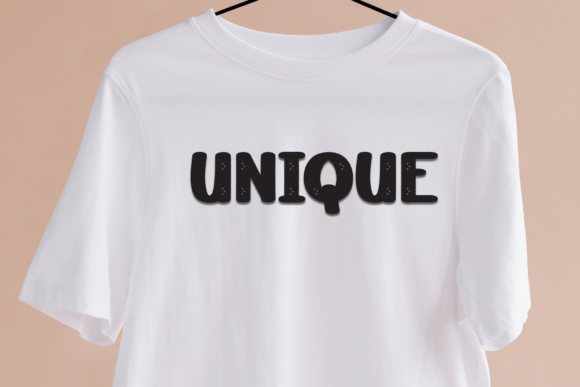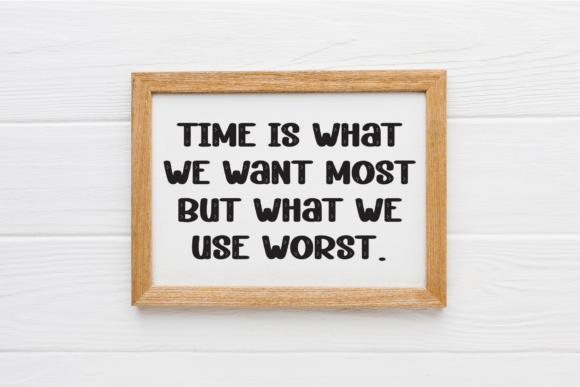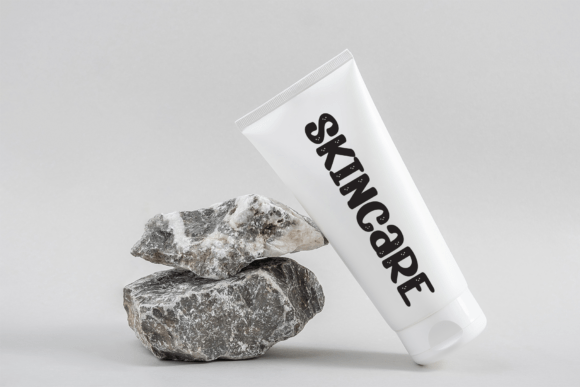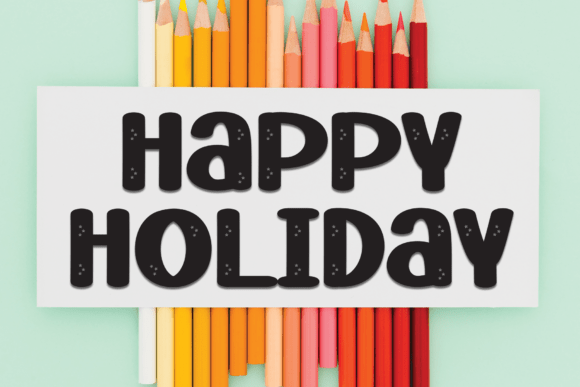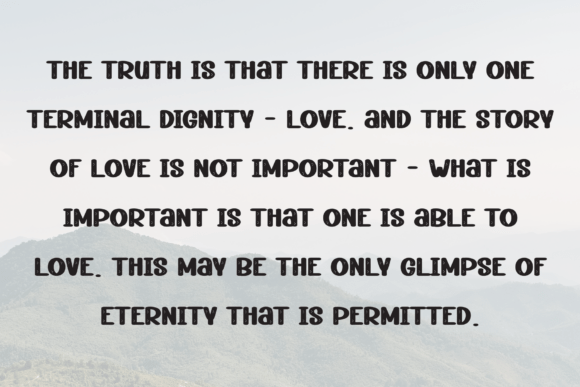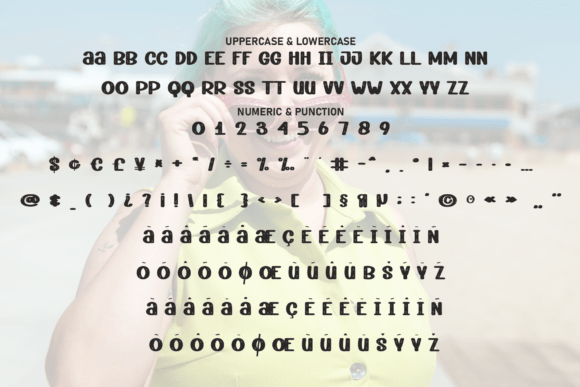
Introducing Chubby Summer Font: The Perfect Blend of Clarity and Relaxed Style
Are you tired of using fonts that are either too formal or too over-the-top for your design projects? Look no further than the Chubby Summer Font, a neat and casual display font that strikes the perfect balance between clarity and a relaxed, approachable vibe. In this article, we’ll dive into the features and benefits of Chubby Summer, and explore how it can elevate your designs, whether you’re a seasoned designer or a crafty DIY enthusiast.
Clean Lines, Friendly Letterforms
One of the standout features of Chubby Summer is its clean lines and friendly letterforms. This font is designed to be easy to read, making it perfect for headlines, posters, packaging, and branding that needs to communicate a message quickly and effectively. The clean lines also give Chubby Summer a modern feel, ensuring that your designs look fresh and up-to-date.
But what really sets Chubby Summer apart is its friendly letterforms. The font has a warm and approachable quality that makes it perfect for designs that need to feel laid-back and relaxed. Whether you’re creating a poster for a summer music festival or a logo for a beachwear brand, Chubby Summer is the perfect choice.
Balanced Structure, Playful Energy
Chubby Summer has a balanced structure that ensures it looks great in a variety of contexts. The font is neither too bold nor too subtle, making it perfect for designs that need to make a statement without overwhelming the message. At the same time, Chubby Summer has a playful energy that brings personality to any project. This font is not afraid to have fun and show off its creative side, making it perfect for designers who want to add a bit of whimsy to their work.
So what can you use Chubby Summer for? The possibilities are endless! Here are just a few ideas to get you started:
- Headlines and Titles: Chubby Summer is perfect for creating eye-catching headlines and titles that draw the reader in.
- Posters and Flyers: Whether you’re promoting a concert, a sale, or a special event, Chubby Summer is a great choice for creating posters and flyers that grab attention.
- Packaging and Branding: Chubby Summer is a great choice for packaging and branding that needs to feel modern yet laid-back. Use it for product labels, business cards, or social media graphics.
- DIY Crafts: Chubby Summer is also perfect for crafty DIY enthusiasts who want to add a personal touch to their projects. Use it for scrapbooking, journaling, or creating handmade cards.
Why Choose Chubby Summer?
So why should you choose Chubby Summer over other fonts? Here are just a few reasons:
- Readability: Chubby Summer is designed to be easy to read, making it perfect for designs that need to communicate a message quickly and effectively.
- Versatility: Chubby Summer is a versatile font that can be used for a wide range of design projects, from posters and packaging to DIY crafts.
- Personality: Chubby Summer has a playful energy that brings personality to any project. This font is not afraid to have fun and show off its creative side.
In conclusion, Chubby Summer is a fantastic font that offers the perfect blend of clarity and relaxed style. Its clean lines, friendly letterforms, and balanced structure make it perfect for a wide range of design projects, from headlines and posters to packaging and branding. Whether you’re a seasoned designer or a crafty DIY enthusiast, Chubby Summer is a great choice for anyone who wants to add a bit of personality to their work. So why not give it a try and see how Chubby Summer can elevate your designs?